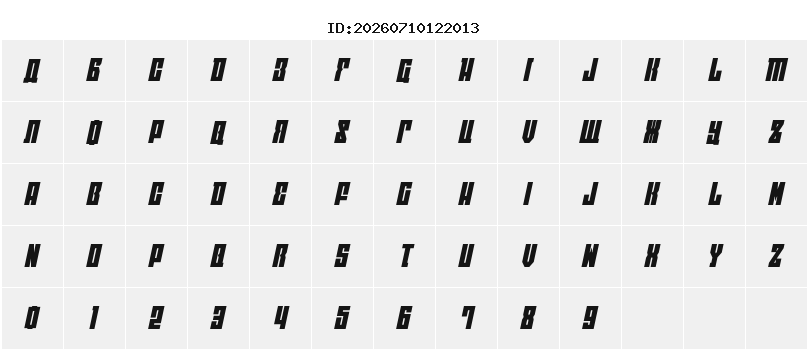
EAST-west Expanded Italic Preview
• Font Name: EAST-west Expanded Italic
• Font Style: Expanded Italic
• Full Font Name: EAST-west Expanded Italic
About EAST-west Expanded Italic.ttf
EAST-west Expanded Italic.ttf is a modern, elegant sans-serif font designed for ultimate readability and visual harmony. Perfect for branding, headlines, web design, and print materials.